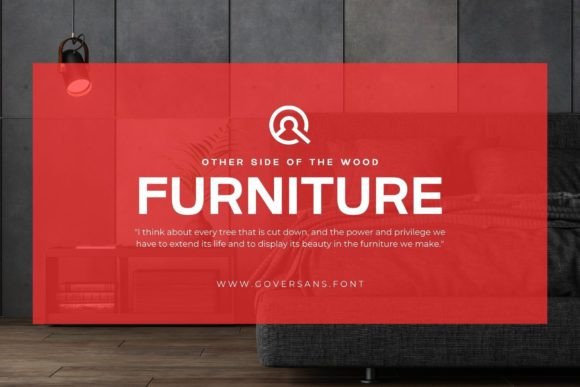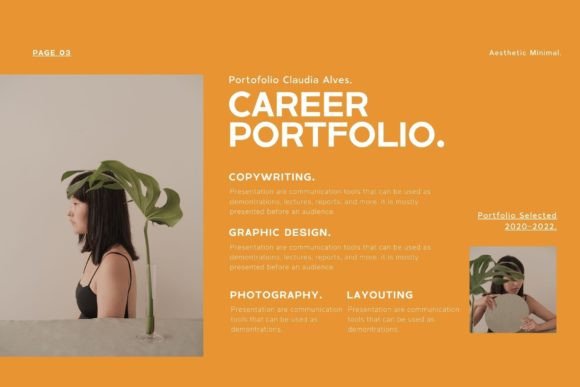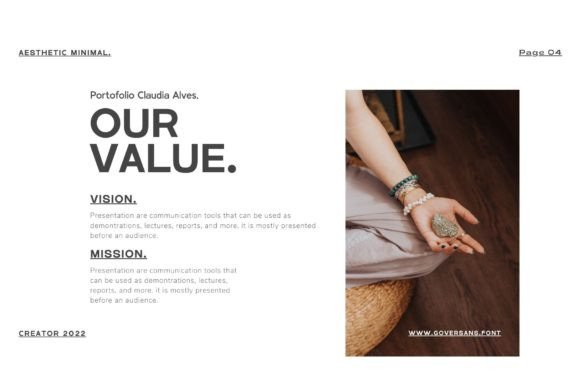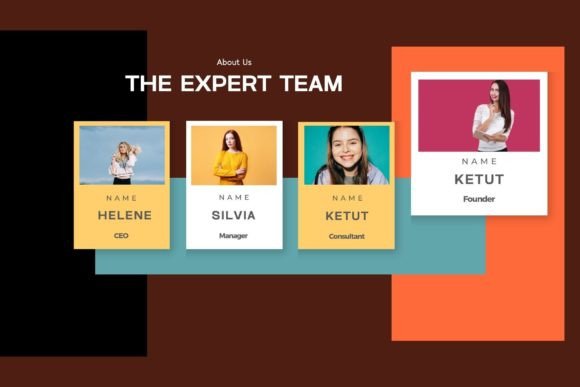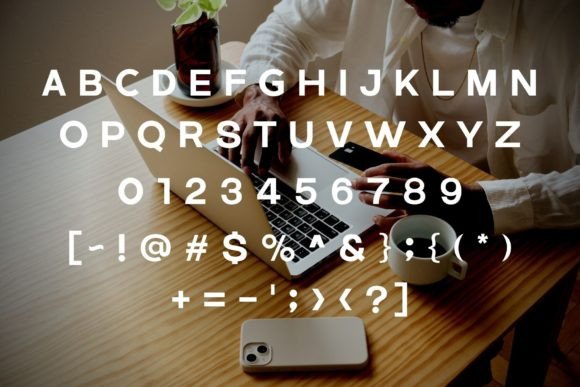
Introducing Govers Font: Elevate Your Design with Clarity and Style
In the world of typography, a well-crafted font can make all the difference in communicating your message effectively. Meet Govers, a modern sans font meticulously designed to provide a pleasant reading experience. With its clean lines and balanced proportions, Govers offers a sleek and contemporary look that is easy on the eyes, making it perfect for a wide range of applications.
The Design Philosophy Behind Govers
Govers was created with a clear vision: to produce a font that combines style with readability. The design team focused on crafting a typeface that would be versatile enough to be used in professional documents, user-friendly interfaces, and various design projects. By emphasizing clarity and simplicity, Govers ensures that your text is not only visually appealing but also effortlessly readable.
Key Features of Govers Font
- Clean Lines: The font features clean, crisp lines that give it a modern and fresh appearance. This makes Govers highly legible, even at smaller sizes.
- Balanced Proportions: The characters in Govers are designed with balanced proportions, ensuring that the font looks harmonious and aesthetically pleasing. This balance contributes to a pleasant reading experience, as it reduces visual fatigue.
- Versatility: Govers is a versatile font that can be used across various platforms and design projects. Whether you’re working on a professional document, a website, or a mobile app, Govers adapts seamlessly.
- Contemporary Look: The sleek design of Govers gives it a contemporary look that will make your text stand out. It’s perfect for designers and crafters looking to add a modern touch to their work.
Applications of Govers Font
Govers’ versatility makes it suitable for a wide range of applications. Here are some of the areas where Govers can make a significant impact:
- Professional Documents: Use Govers for reports, presentations, and proposals to give your documents a modern and professional look.
- User Interfaces: Govers is ideal for UI design, as its clarity and readability enhance the user experience. It’s perfect for app designs, website content, and software interfaces.
- Digital and Print Media: Whether you’re designing a magazine, brochure, or digital newsletter, Govers provides a clean and stylish look that engages readers.
- Branding and Marketing Materials: Incorporate Govers into your branding and marketing materials to maintain consistency and convey a modern image.
Why Choose Govers Font?
Choosing Govers for your typography needs comes with several advantages:
- Improved Readability: Govers enhances the readability of your text, making it easier for your audience to engage with your content.
- Modern Aesthetic: The font’s contemporary design ensures that your work looks modern and relevant.
- Versatility: Govers can be used across various platforms and projects, making it a valuable addition to your design toolkit.
Govers is more than just a font; it’s a tool that can elevate your design work by providing clarity, style, and versatility. Whether you’re a designer, crafter, or simply someone who appreciates good typography, Govers is an excellent choice for anyone looking to enhance their project’s visual appeal and readability. Embrace the modern sans font that is Govers, and discover how it can transform your text into a visually stunning and effortlessly readable masterpiece.